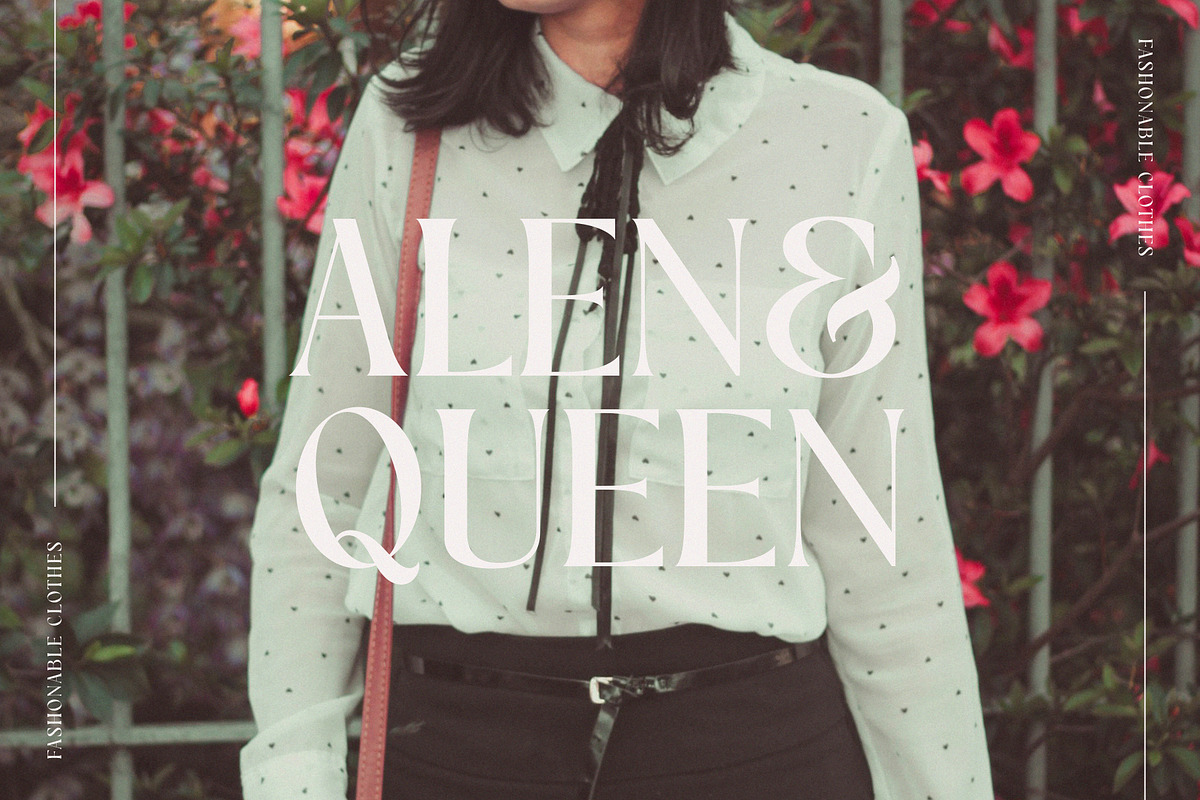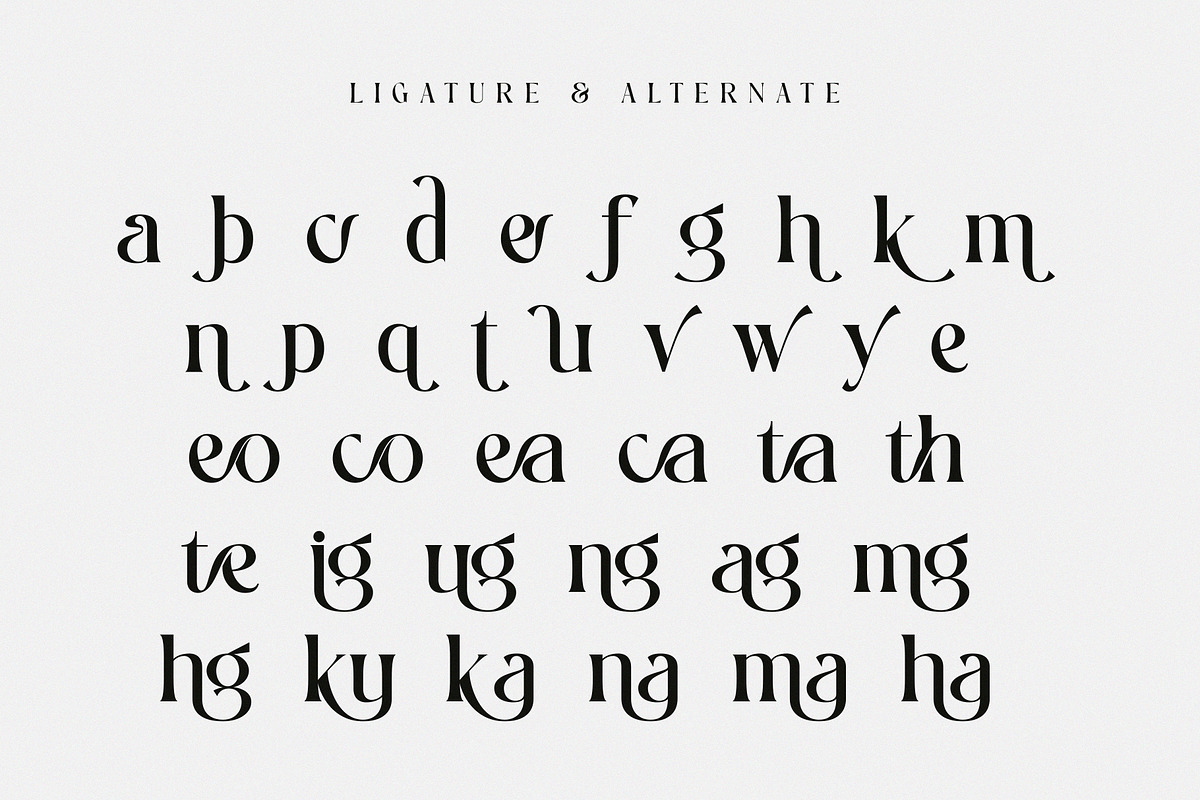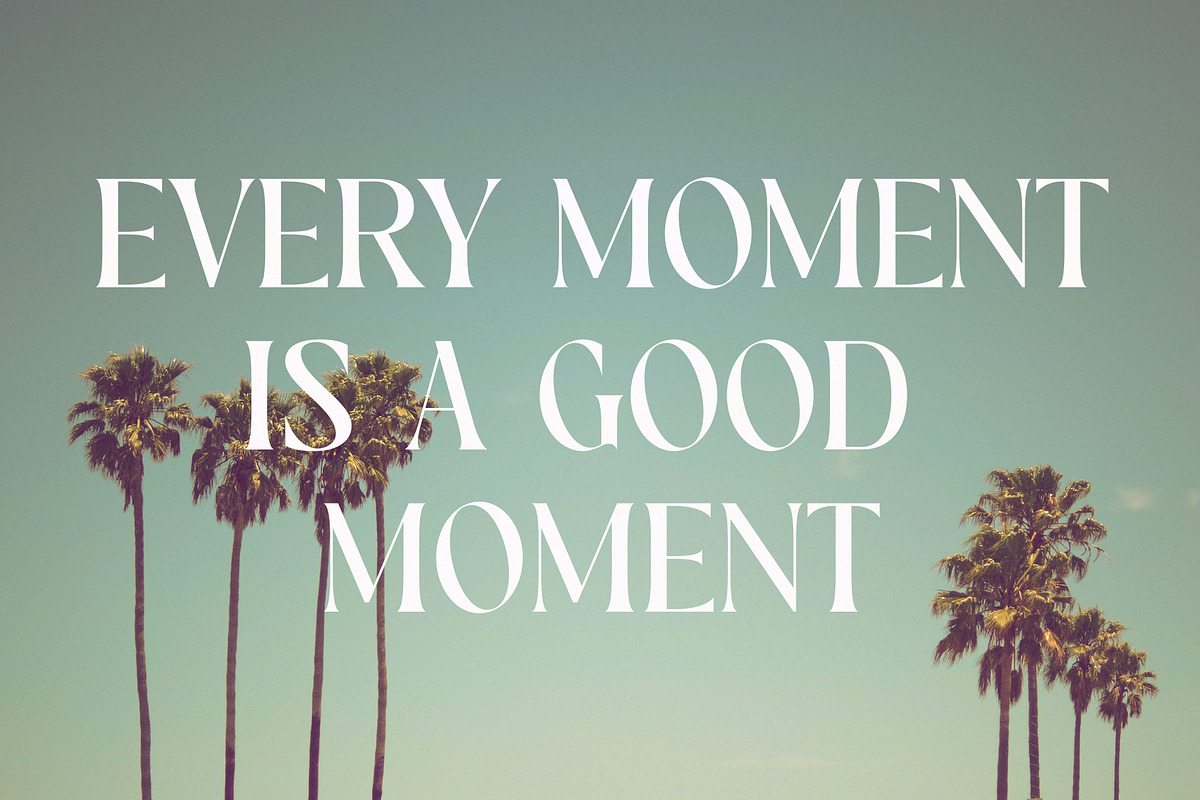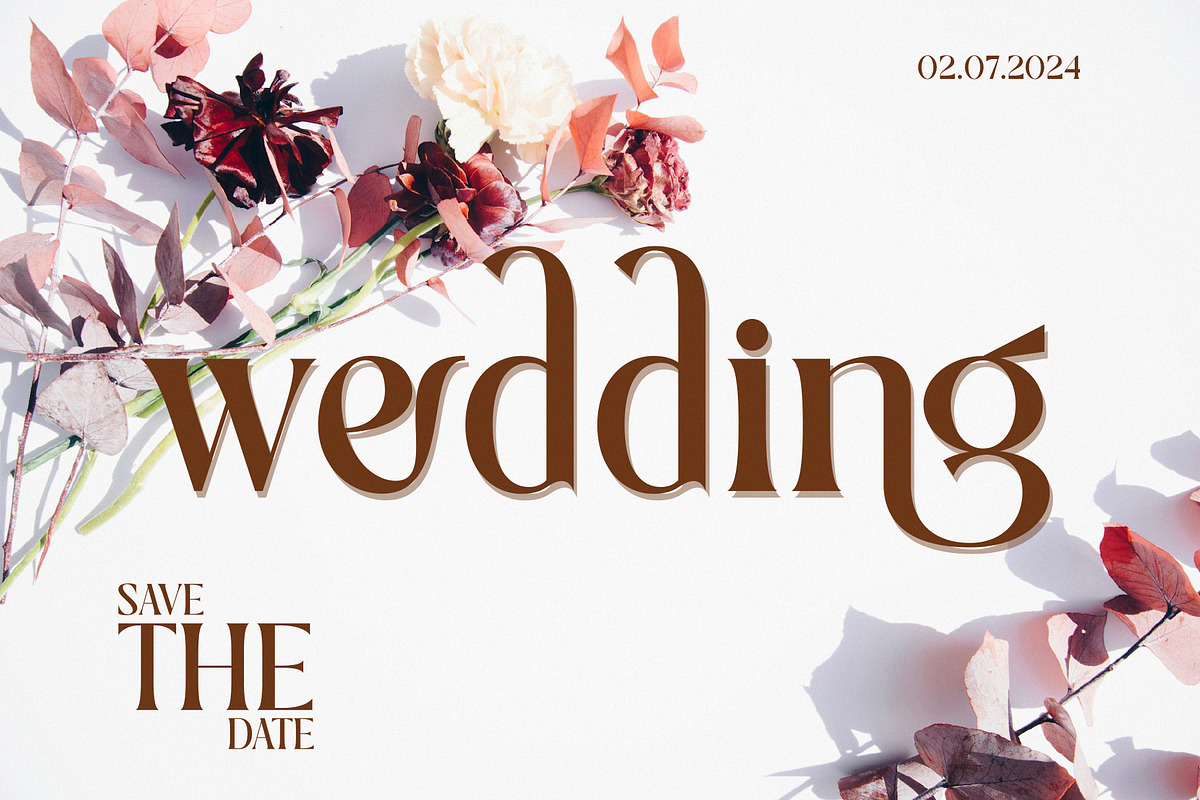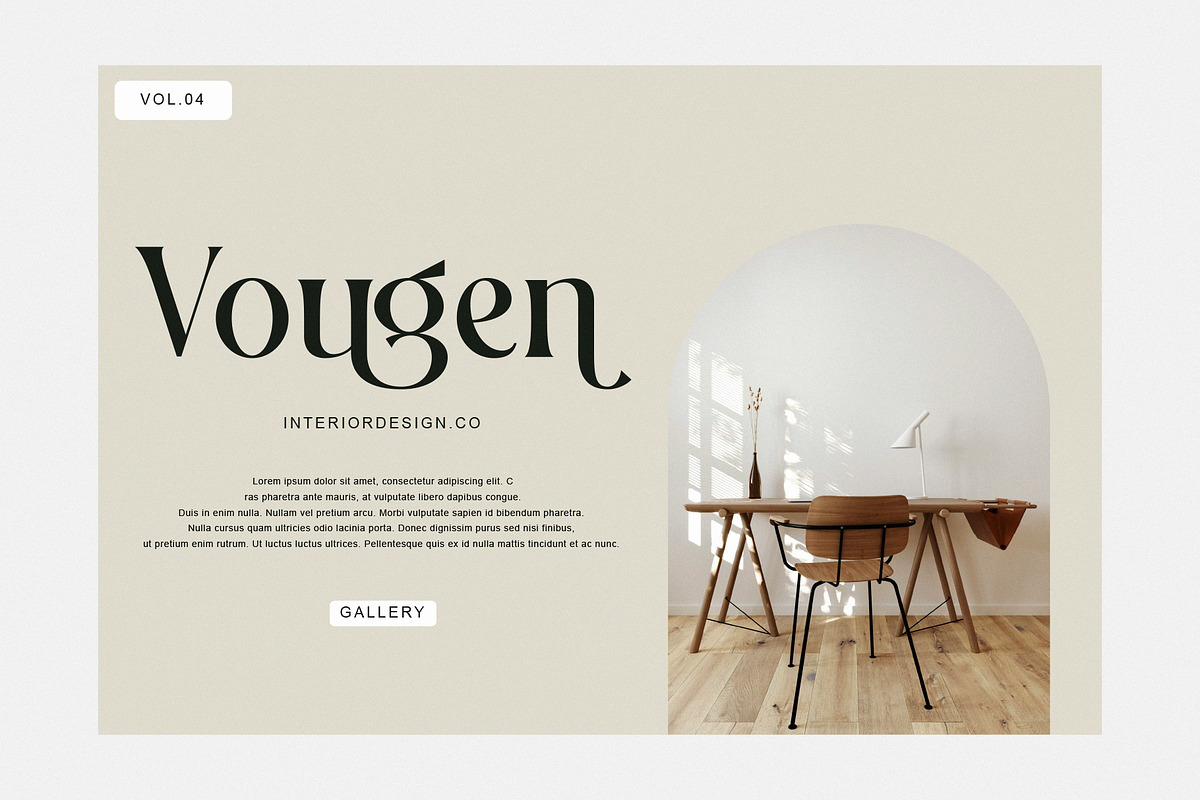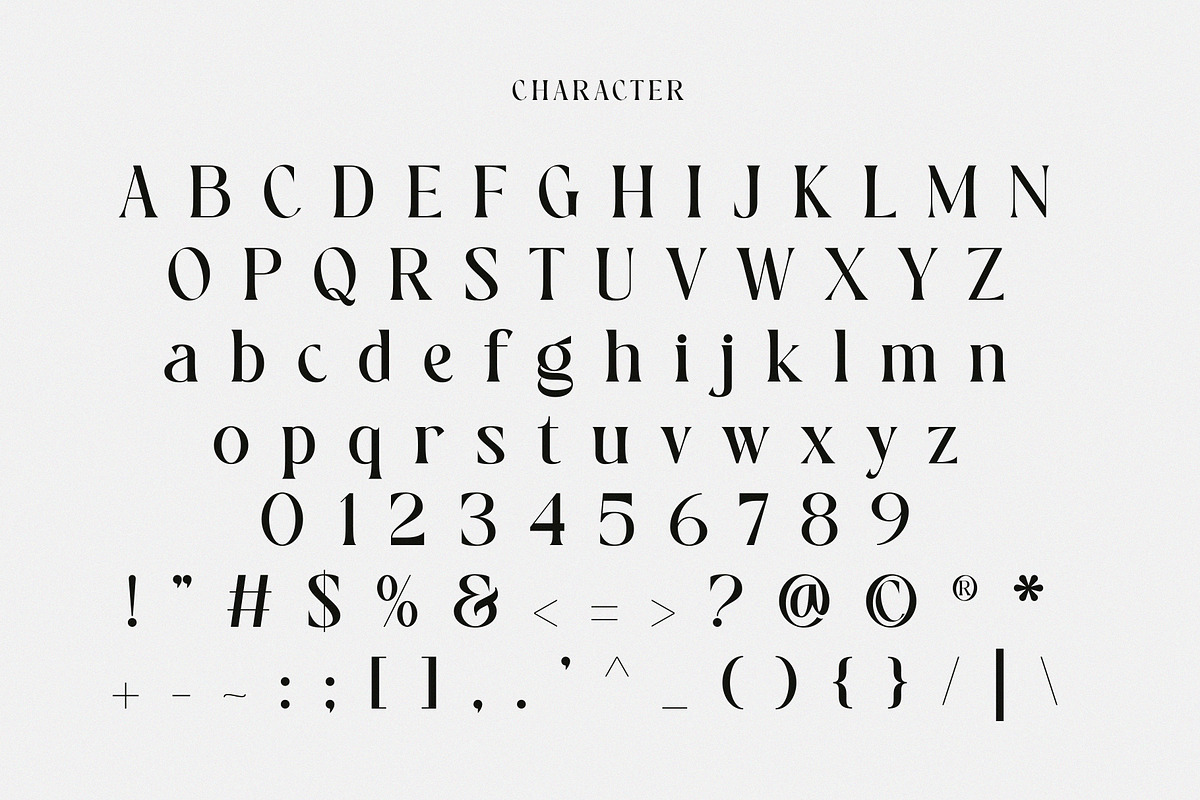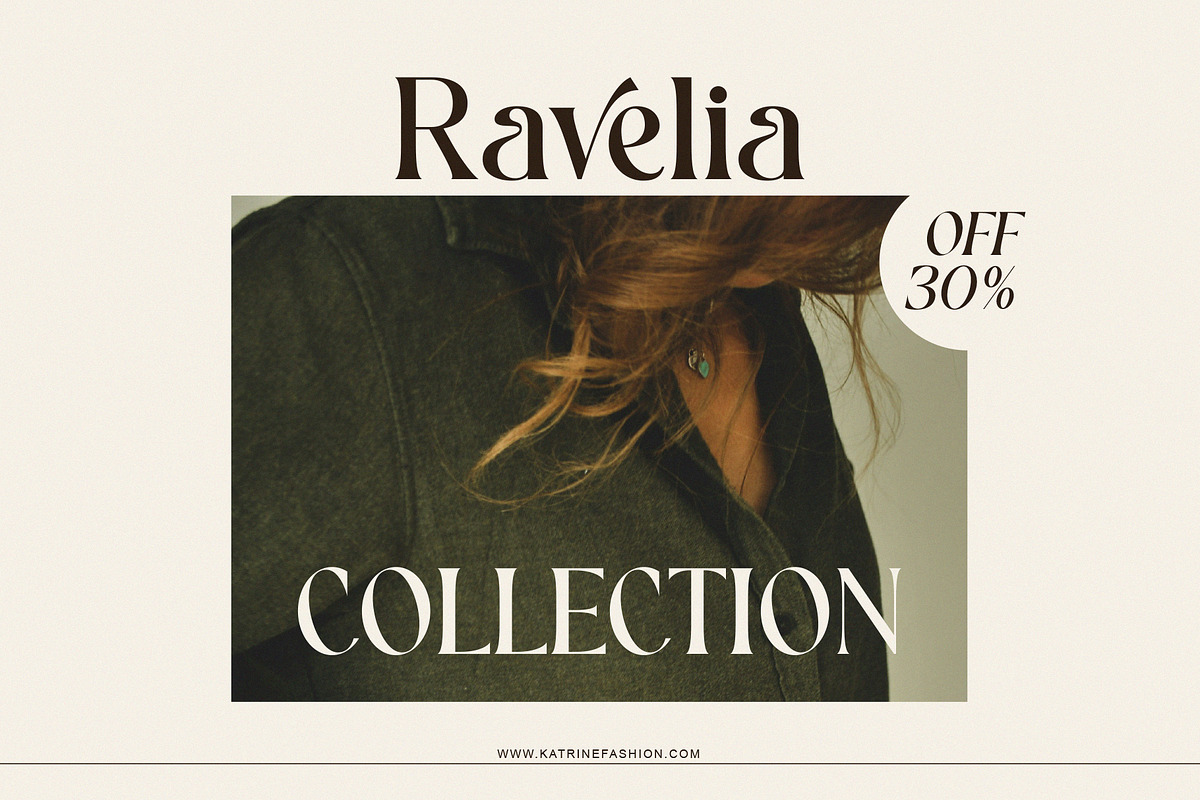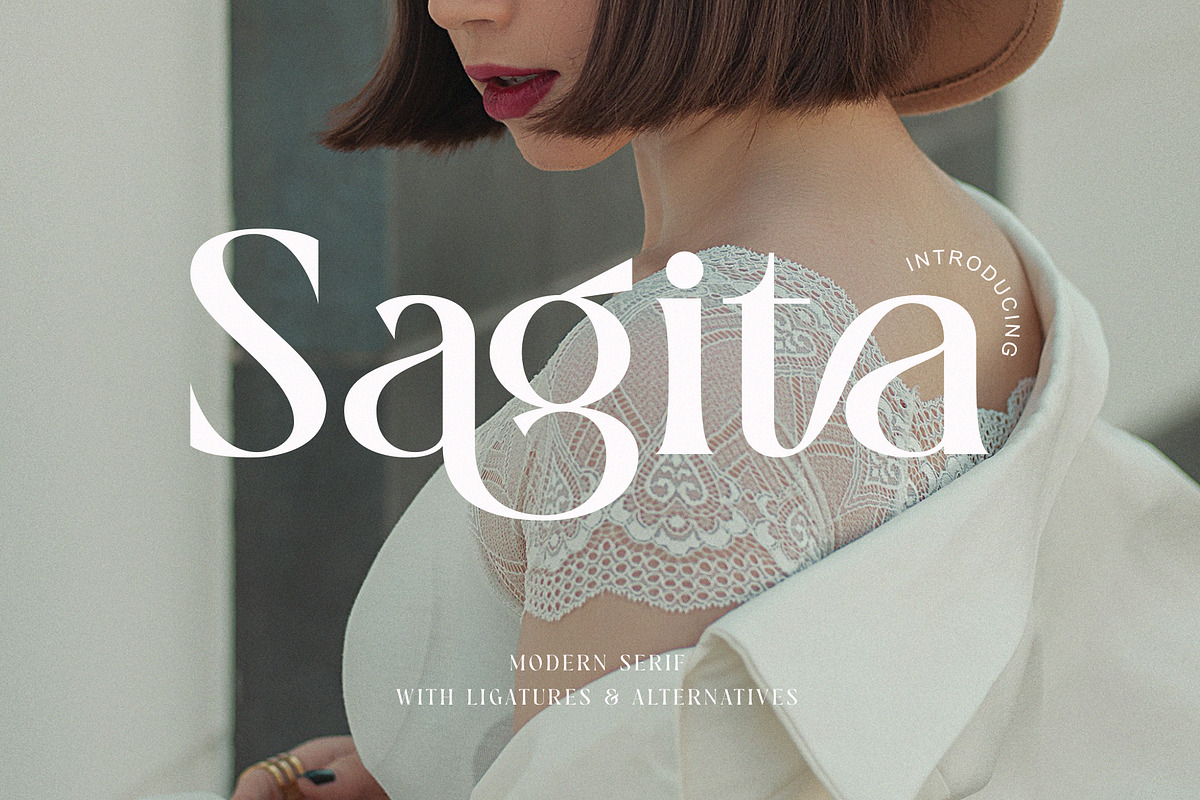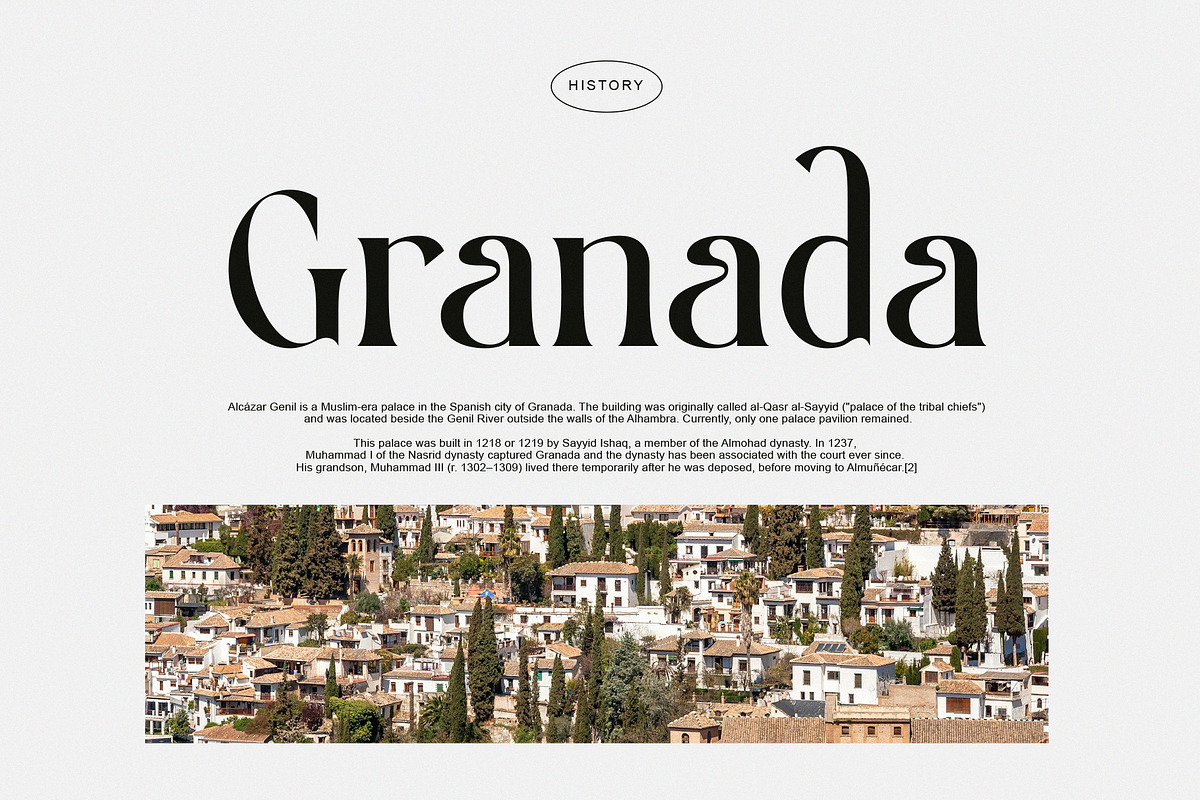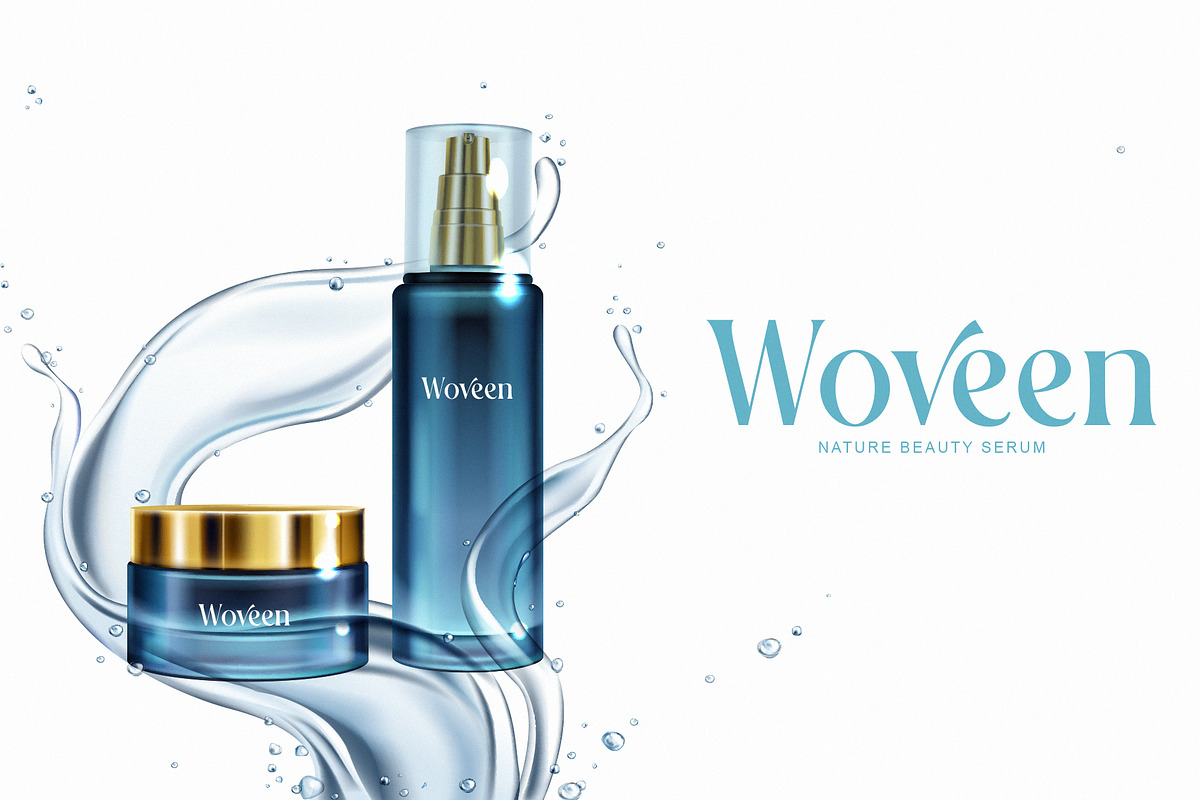
Sagita
Introducing Sagita An elegant and modern serif typeface. With its modern and minimalist look, Sagita brings a luxurious and clean style to your projects such as websites, modern logos, branding identities, social media quotes, wedding stationery and everything else you need!
Sagita displays the capital letters A to Z which are unique and classy of course because they are made with great care so that they become beautiful fonts and can be adapted to various large projects that you want.